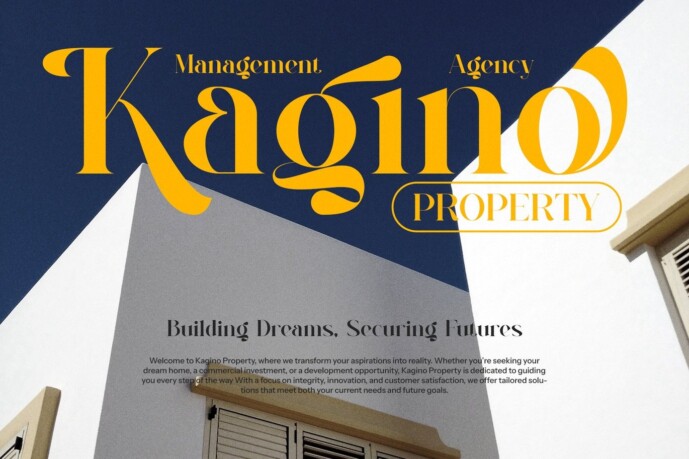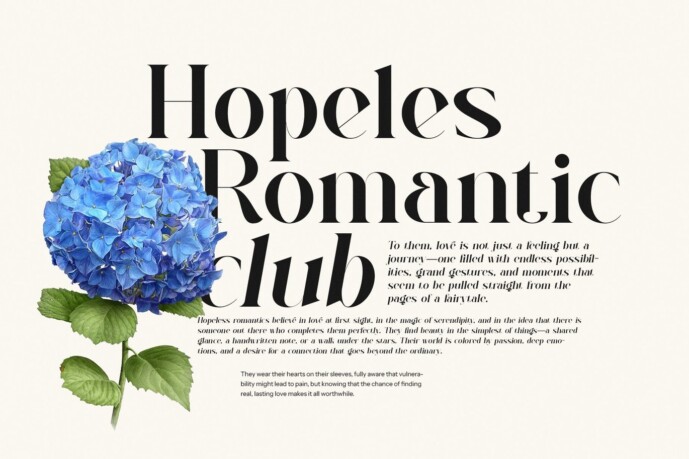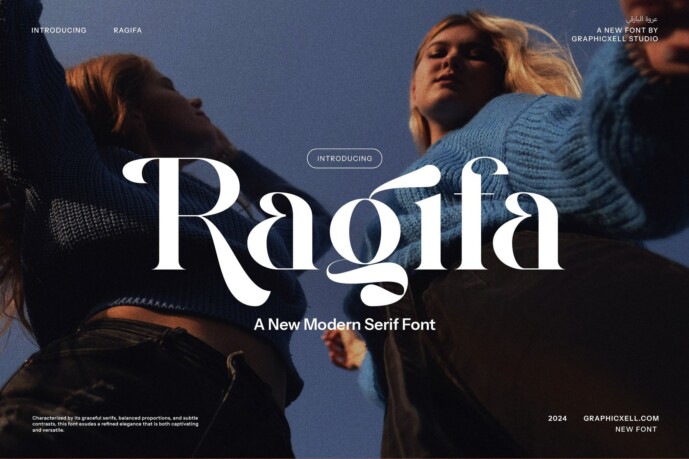
Ragifa Font
Ragifa Font is a modern serif font that brings a trendy touch. It not only looks sophisticated but also charming. What makes it interesting is its delicate curves, which bring an elegant style. The elegant ligature also becomes one of its features and attractions. With calligraphic influences, this font gives a contemporary touch. Therefore, it is perfect for various designs such as beauty designs, elegant creations, layouts, advertising branding, design templates, etc. No matter what project you are doing, Ragifa typeface creates a modern and beautiful design. Whether for personal or commercial use, this font can perfectly meet your needs. The strokes are also very soft. In addition, the thickness of the stroke plays an important role in creating a sophisticated look. If you want to take your graphic design project to the highest level, Ragifa font will be a great help to you. You will surely fall in love with this font.